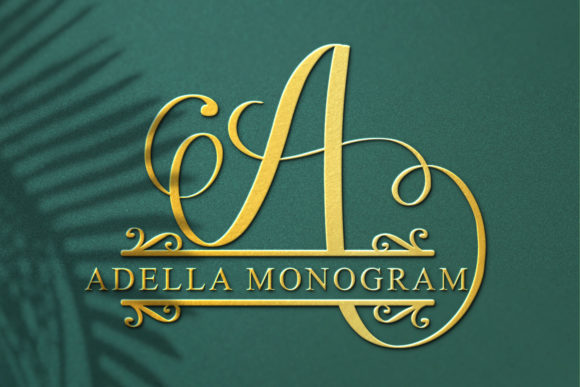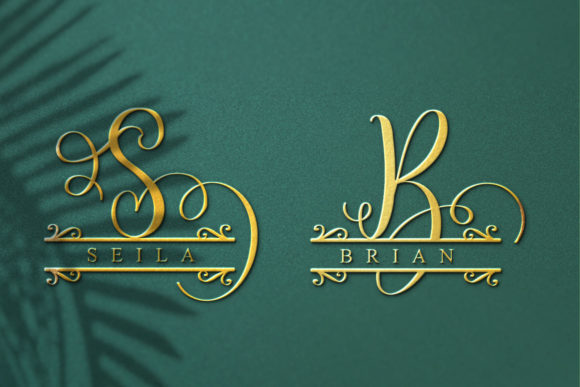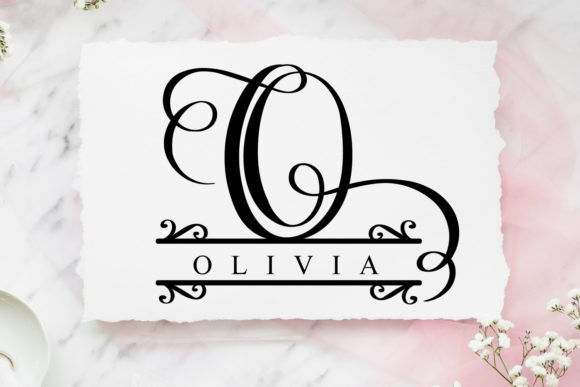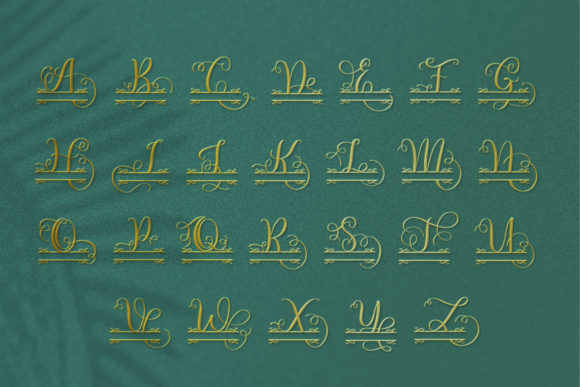
Adella Monogram Font
About Adella Monogram Font
Adella Monogram is a sweet decorative font. Fall in love with its authentic feel and use it to create gorgeous wedding invitations, beautiful stationary art, eye-catching social media posts, and cute greeting cards.